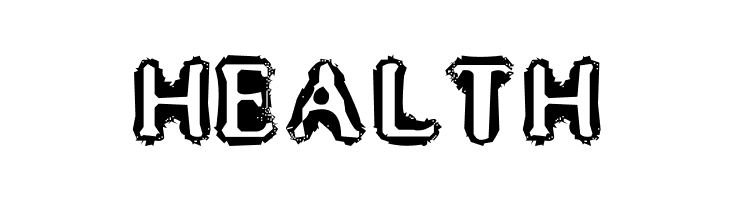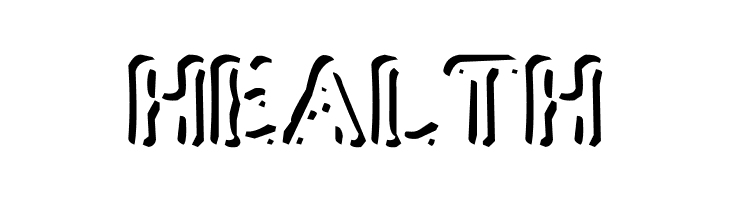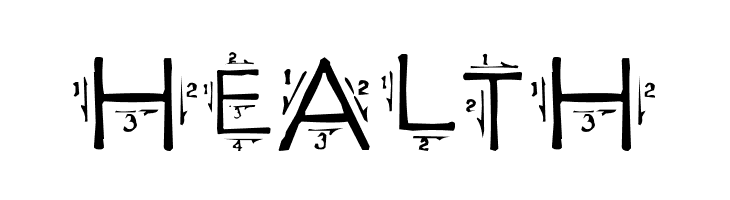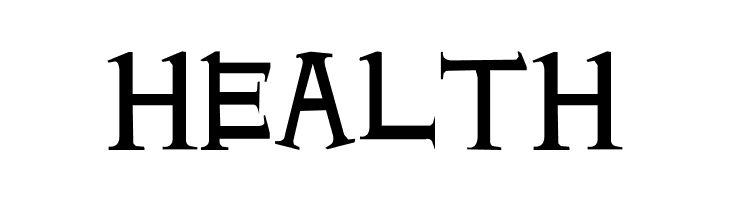
A playful, hand-drawn font with bold outlines and a cartoonish style.
A bold, playful font with a cut-out, handcrafted appearance.
A bold, vintage-style font with exaggerated serifs and dynamic strokes.
A bold, cracked font with a distressed and edgy appearance.
A bold, decorative font with a unique outlined, three-dimensional effect.
A bold, industrial stencil font with unique punched-out sections.
A decorative font with intricate line work and a hand-drawn appearance.
A playful font with characters enclosed in teardrop shapes, offering a whimsical and decorative style.
A bold, stencil-style font with rugged, industrial characteristics.
A bold, gothic-inspired font with sharp, angular edges and intricate details.